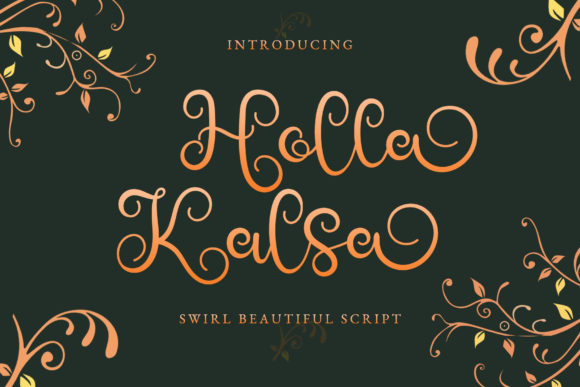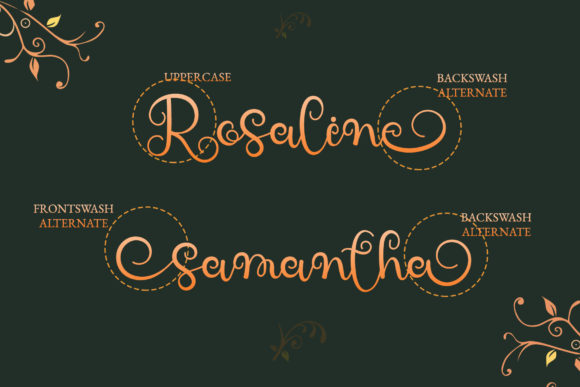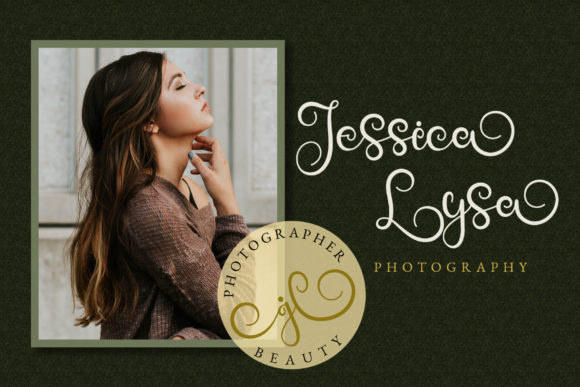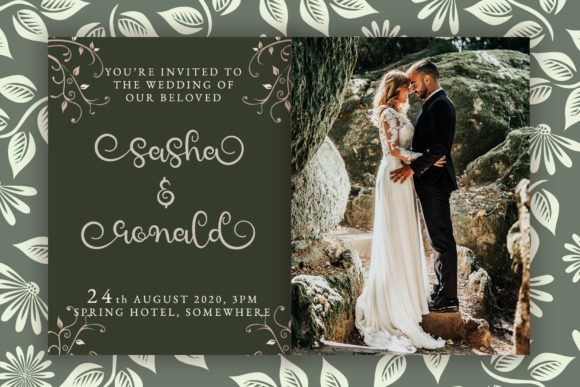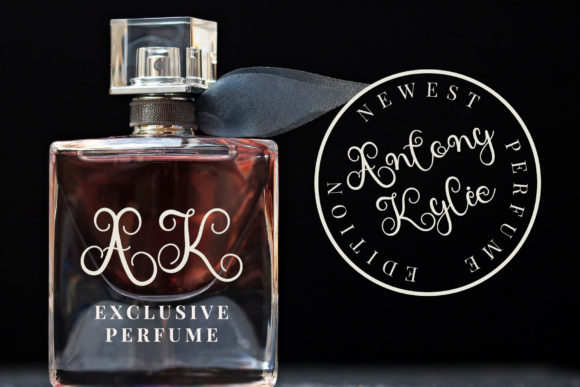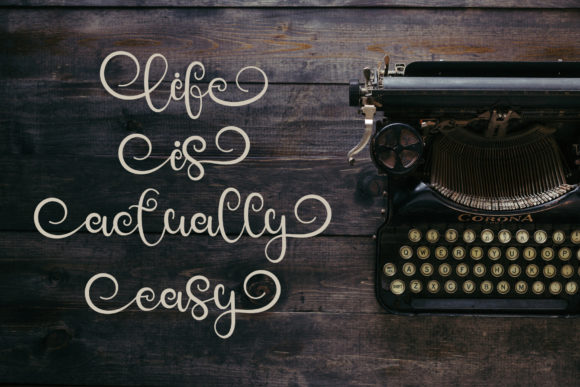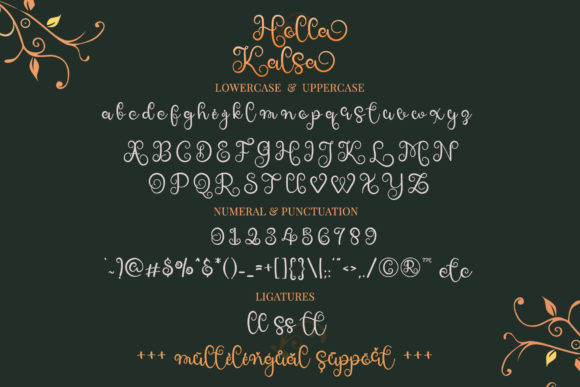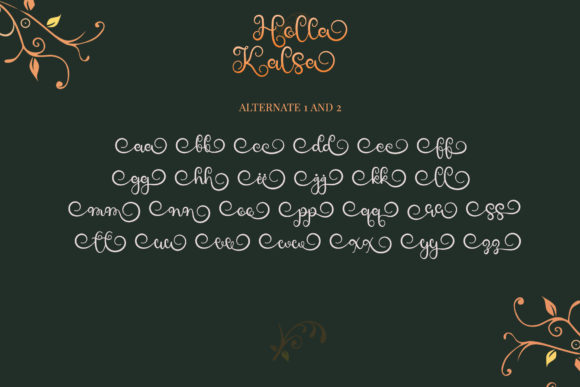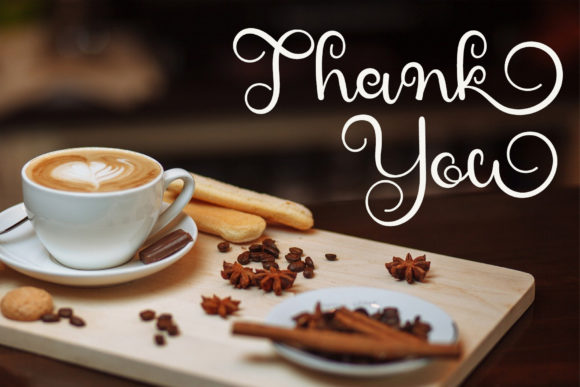
Holla Kalsa Font
About Holla Kalsa Font
Holla Kalsa is swirly, beautiful, and incredibly unique calligraphy font. It is PUA encoded which means you can access all of the glyphs and swashes with ease! It features a varying baseline, smooth lines, gorgeous glyphs and stunning alternates. Fall in love with its incredibly versatile style and use it to create gorgeous wedding invitations, beautiful stationary art, eye-catching social media posts, and much more!